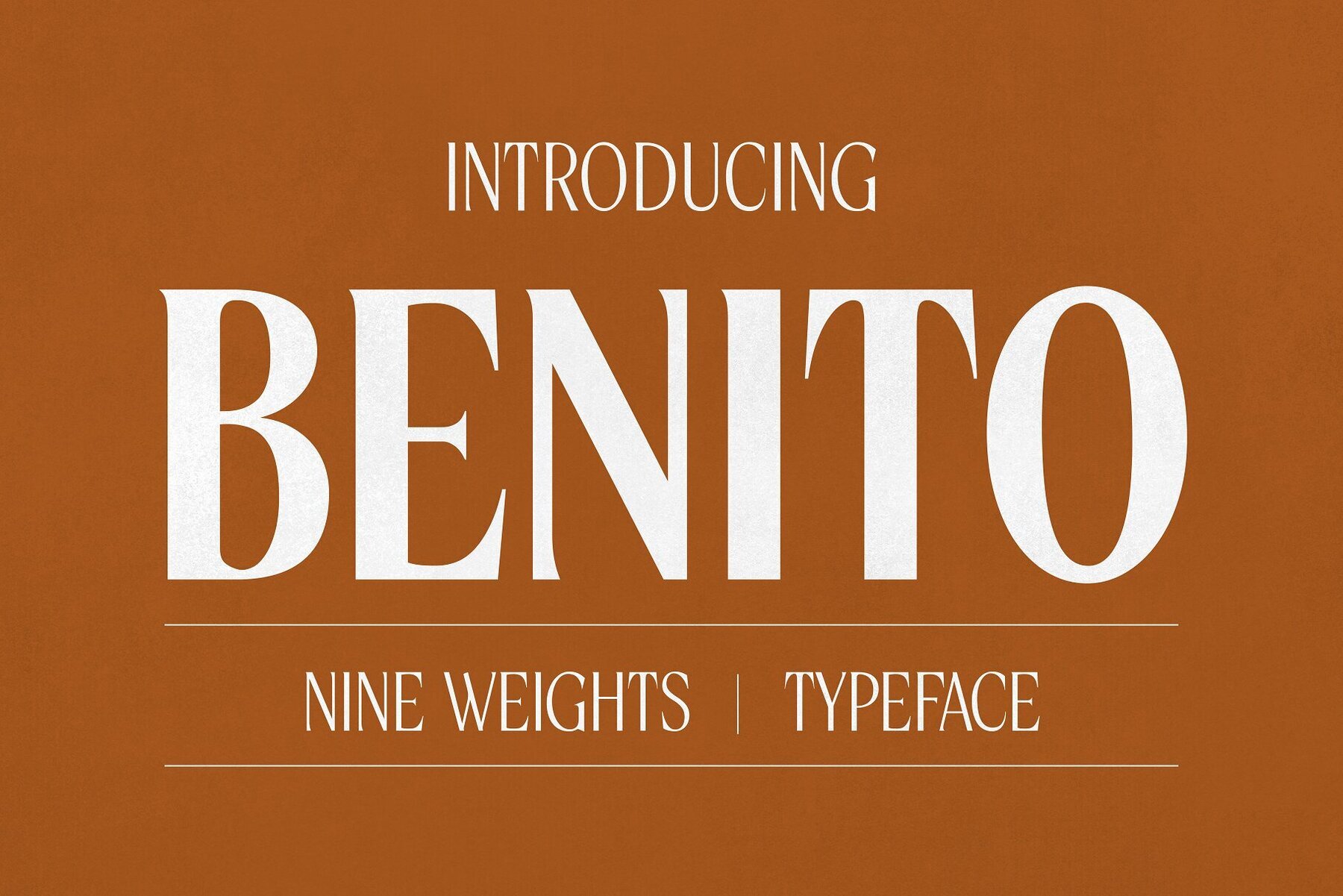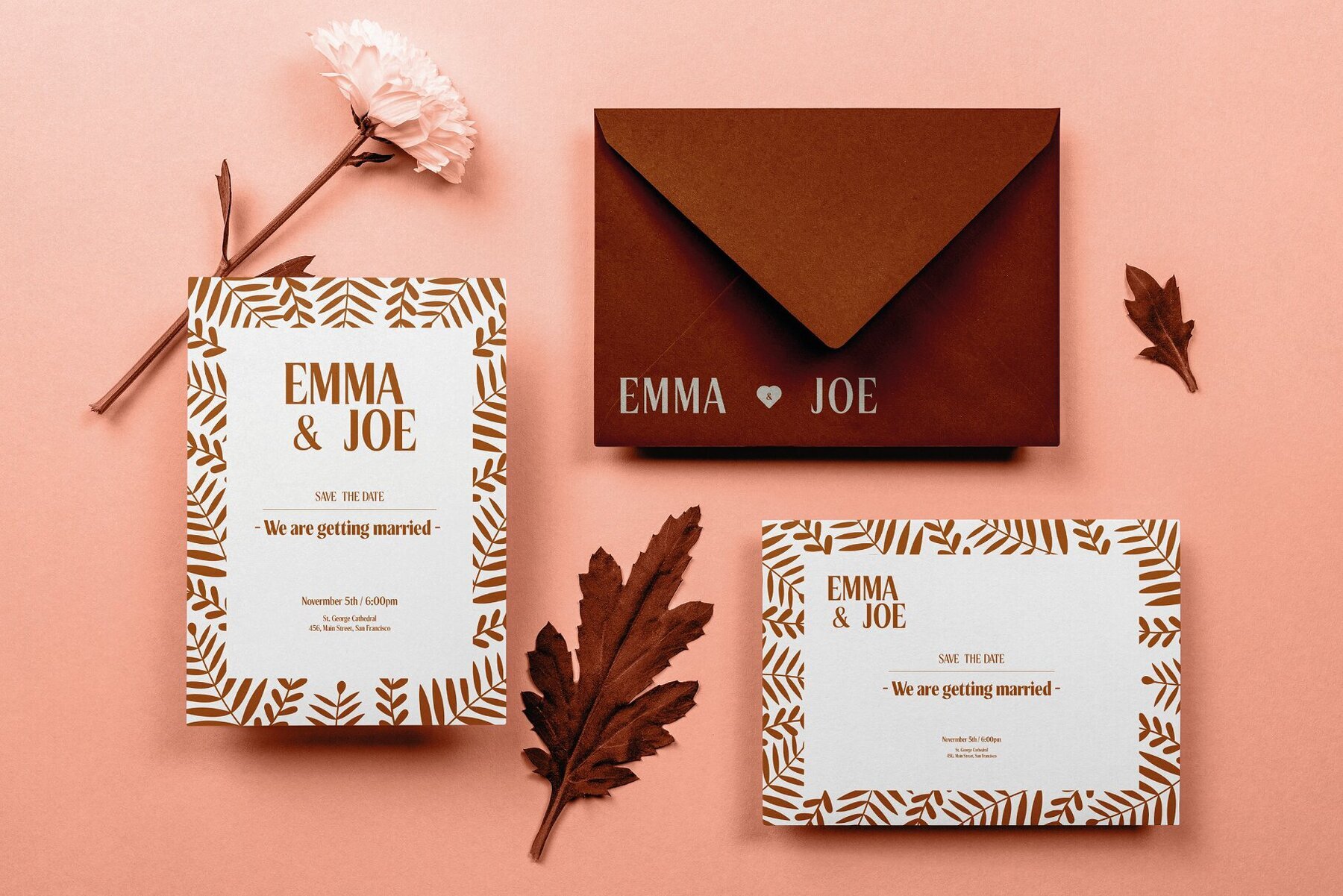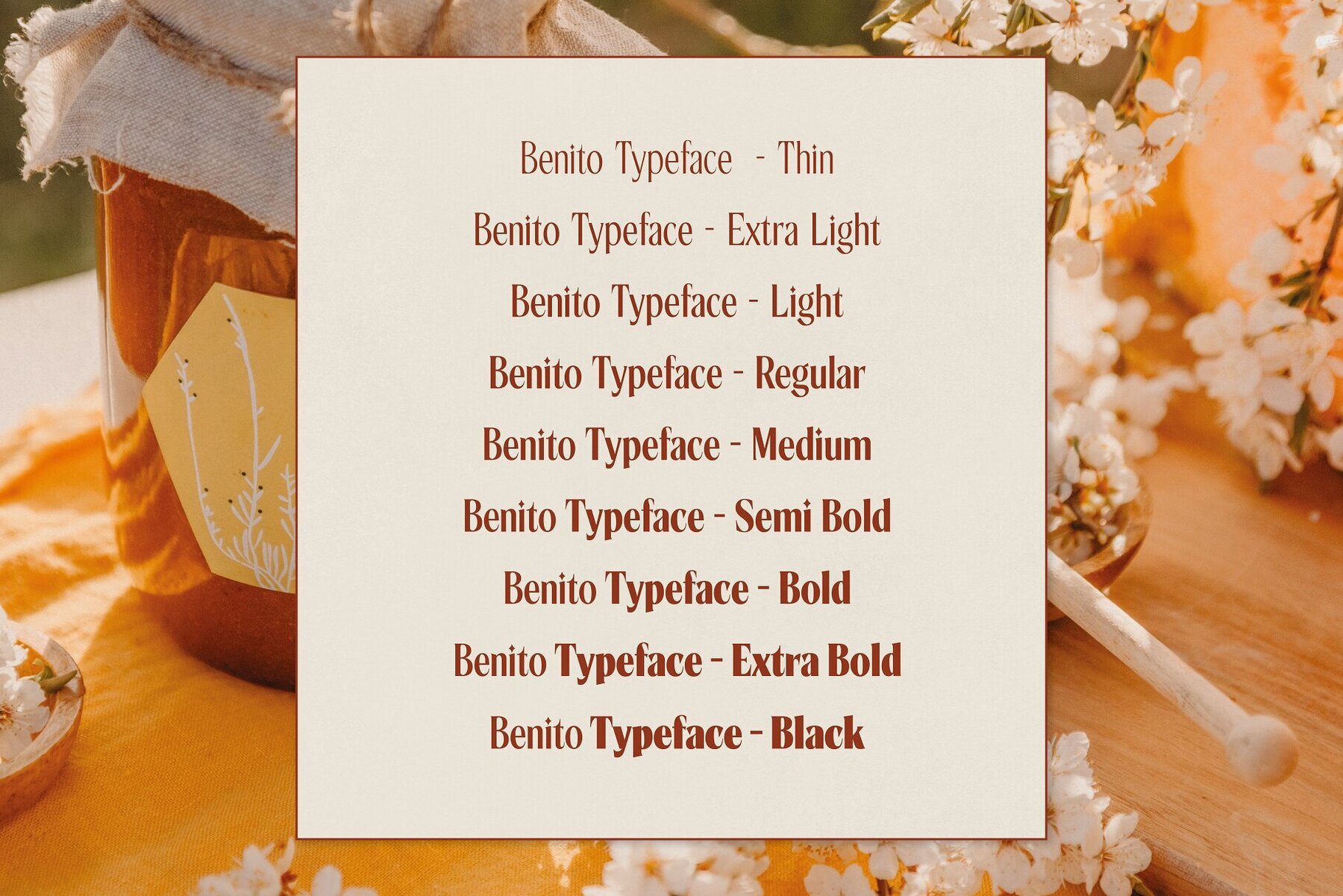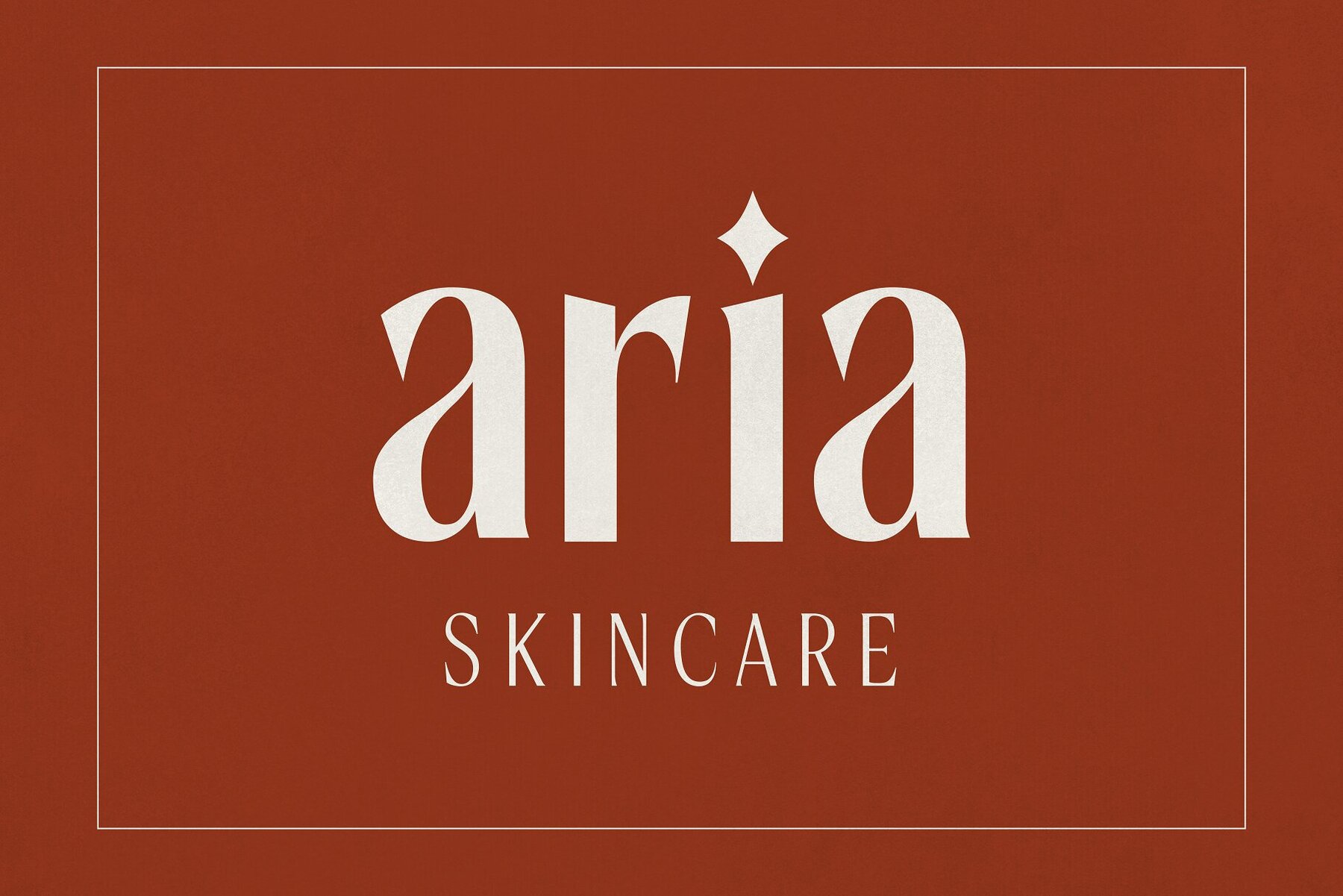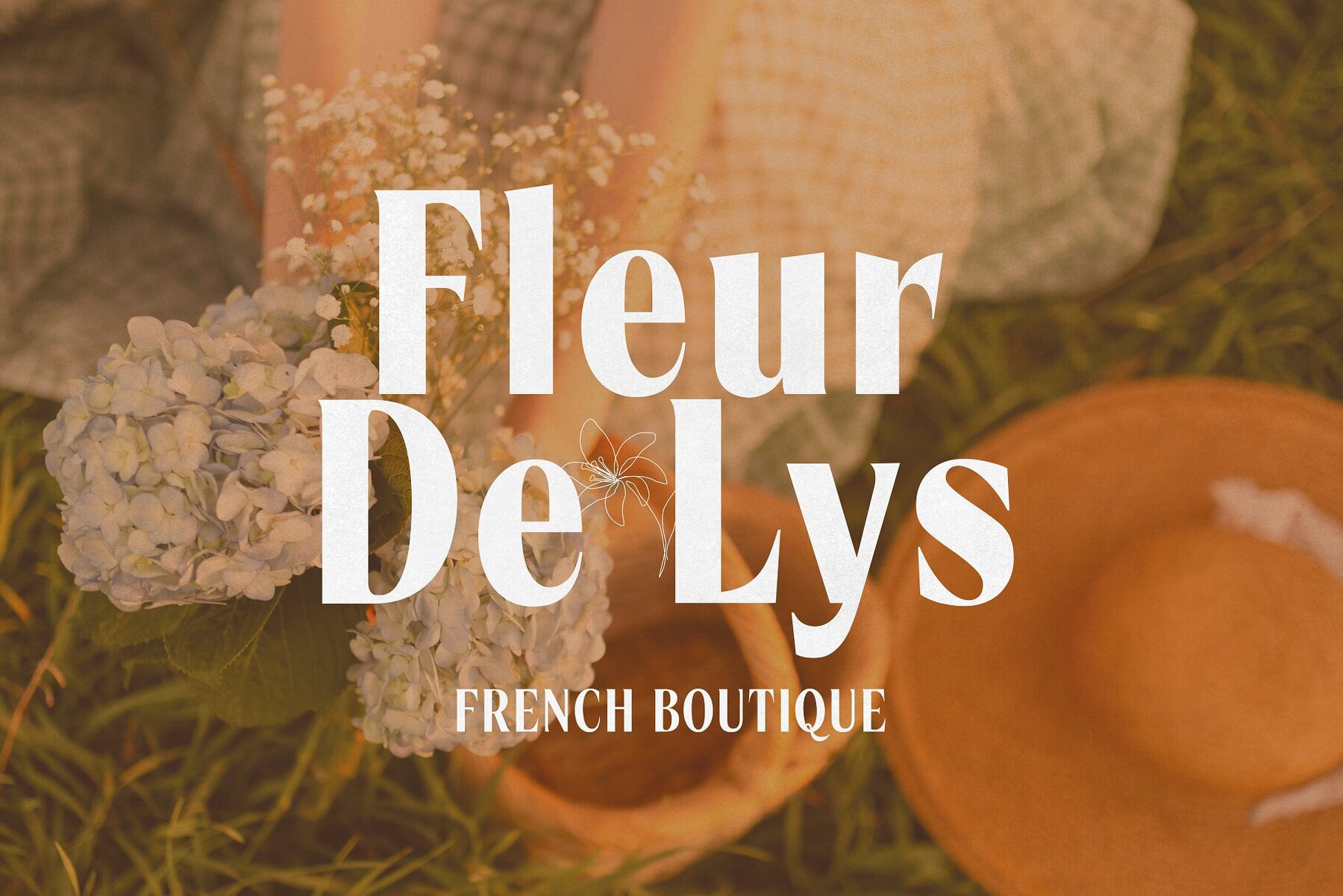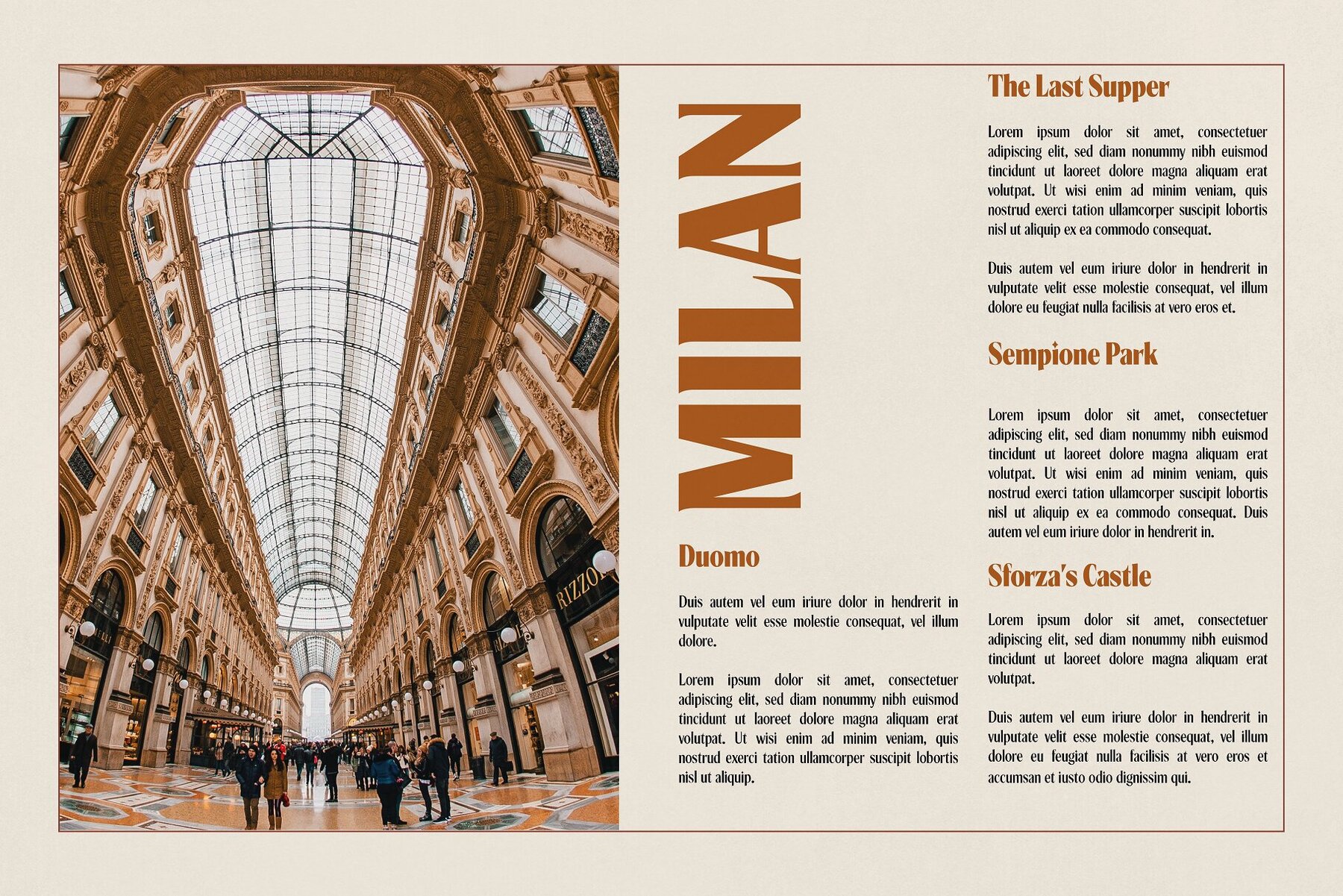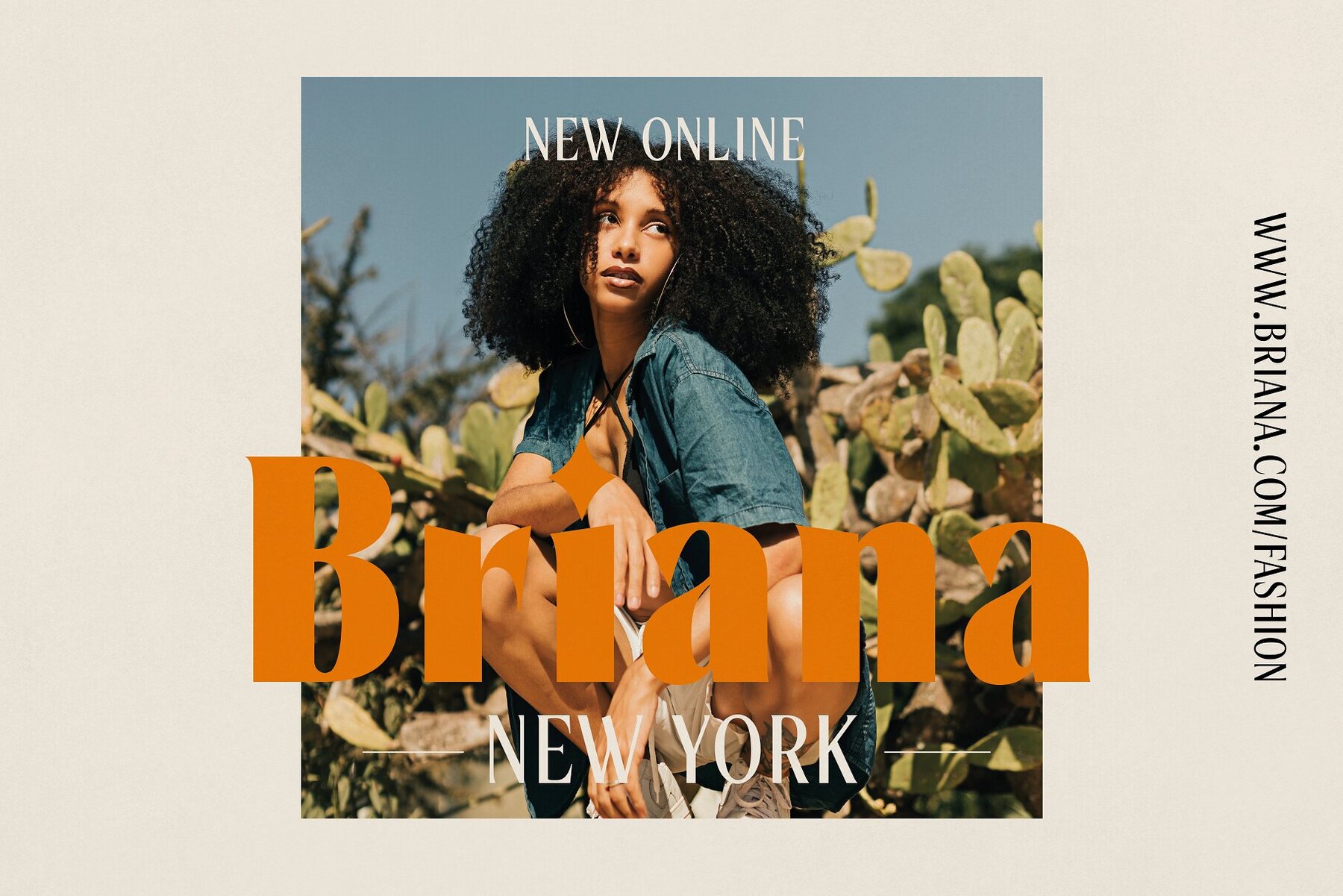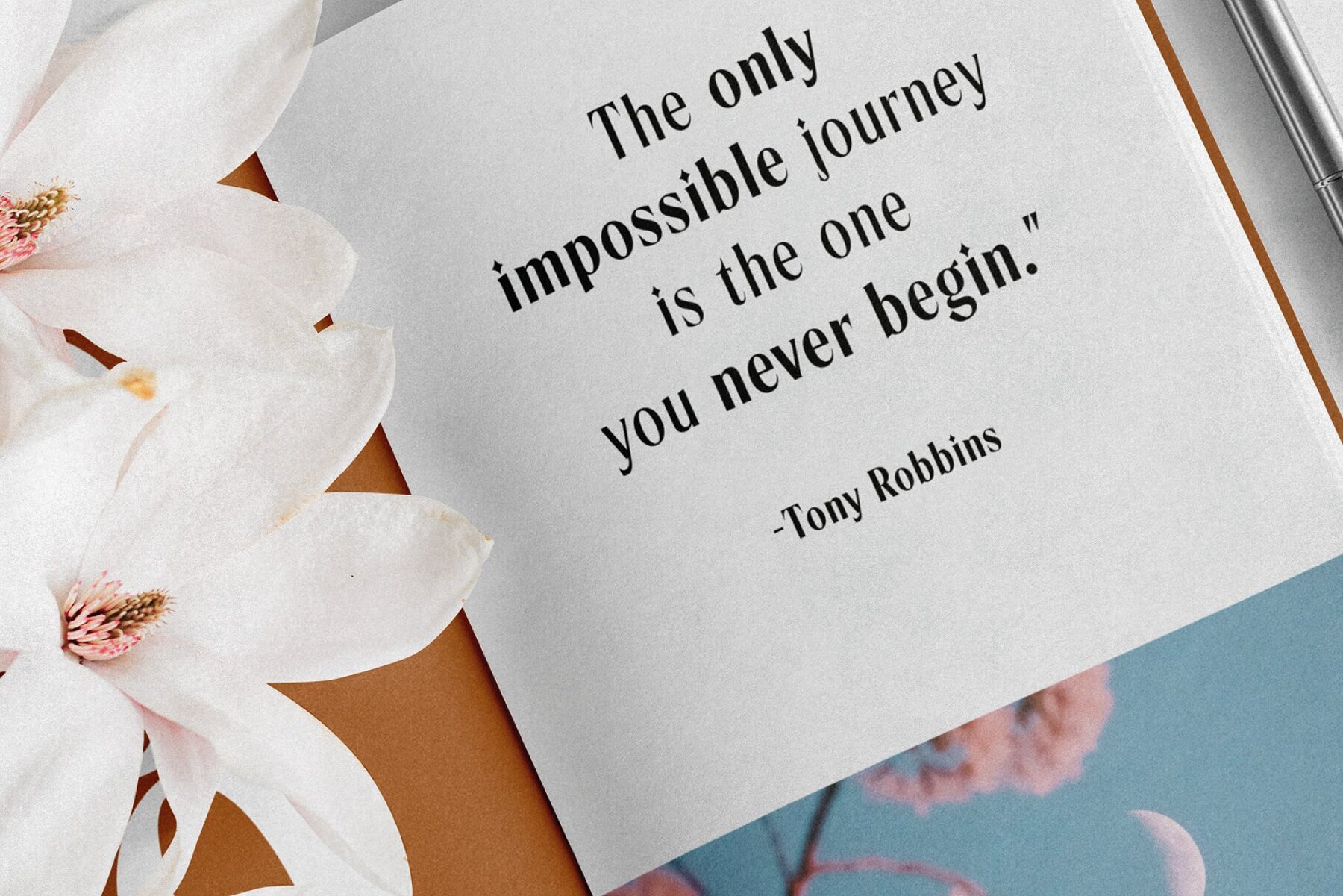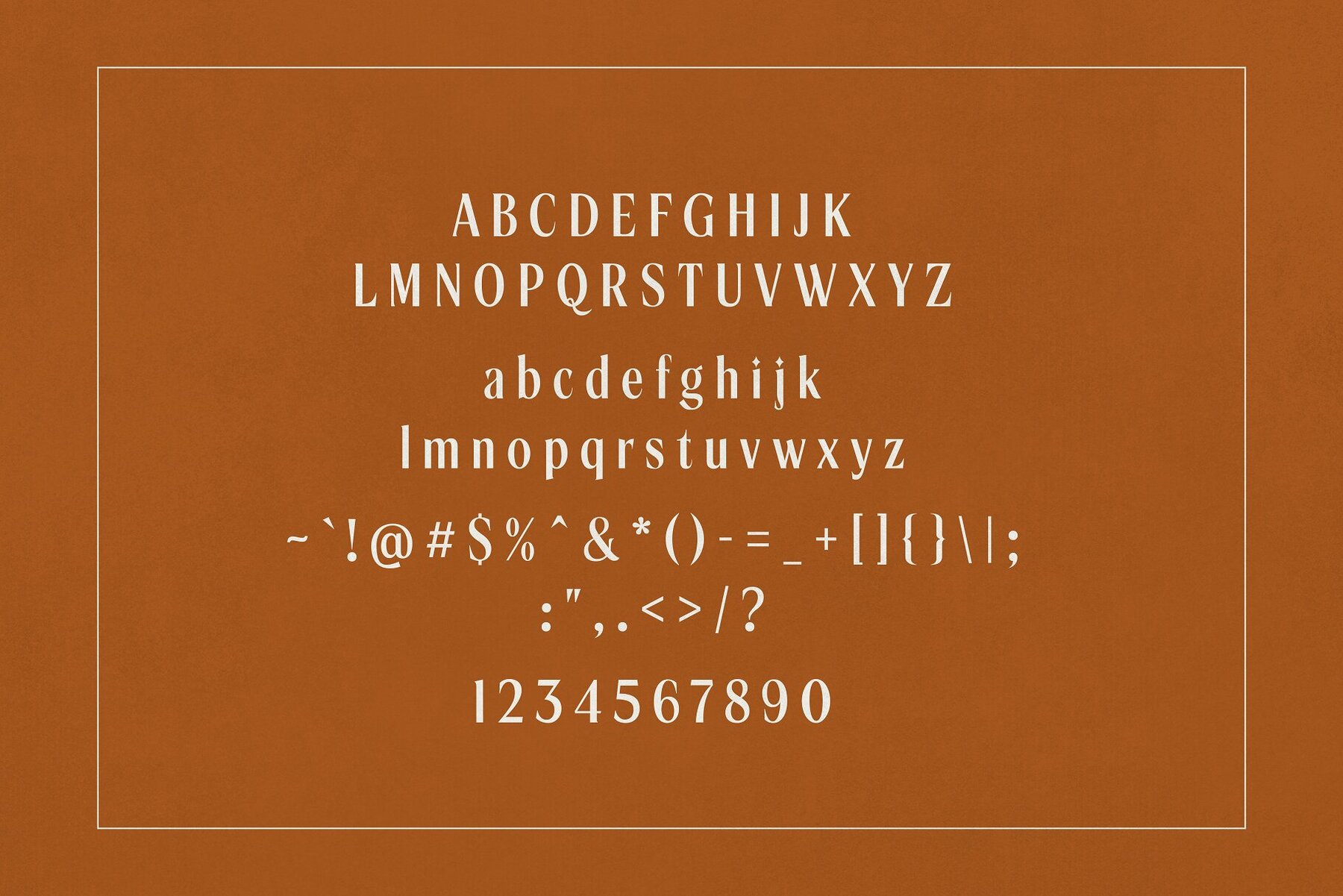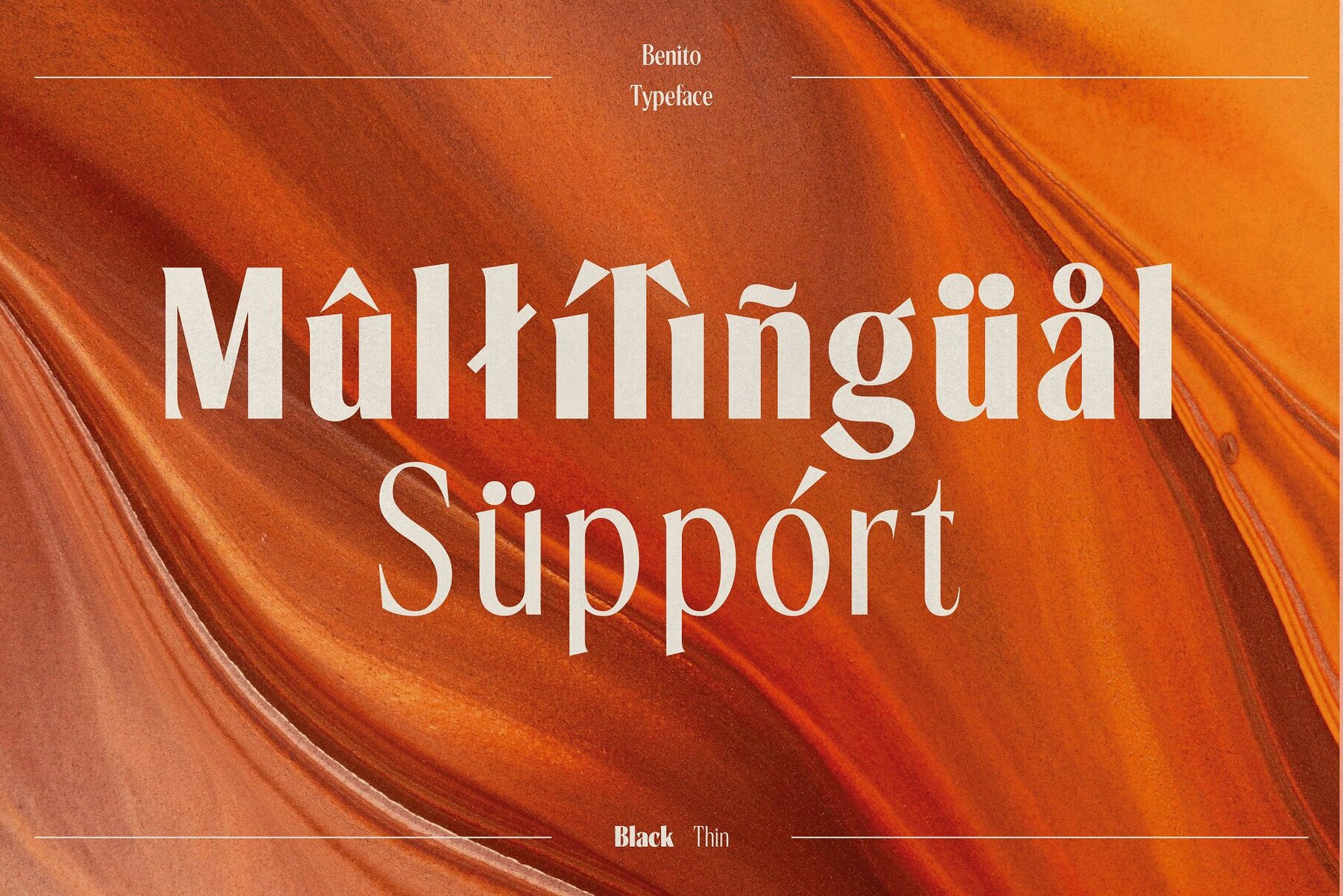
Benito Font
Benito is a font that exudes elegance and sophistication. With its timeless design, it adds a touch of class to any project. The sleek, professional look of Benito makes it a perfect choice for high-end brands and upscale designs. Additionally, its multilingual support makes it versatile and accessible to a global audience. Whether used in print or digital media, Benito is a font that commands attention and leaves a lasting impression.